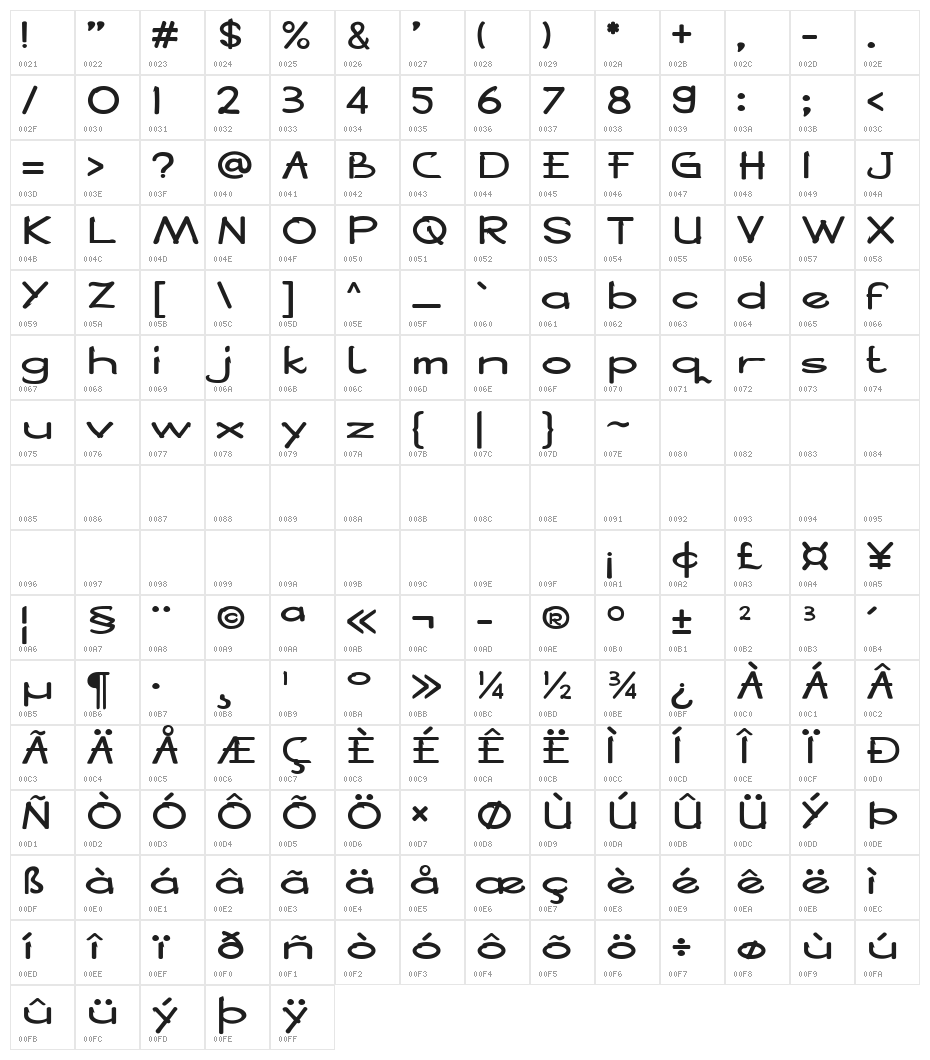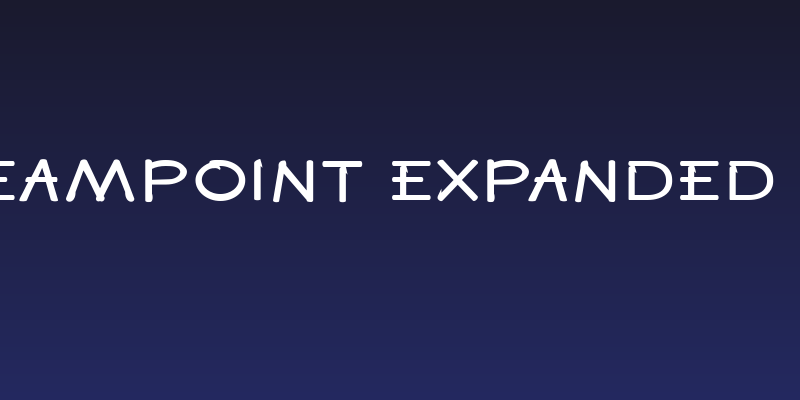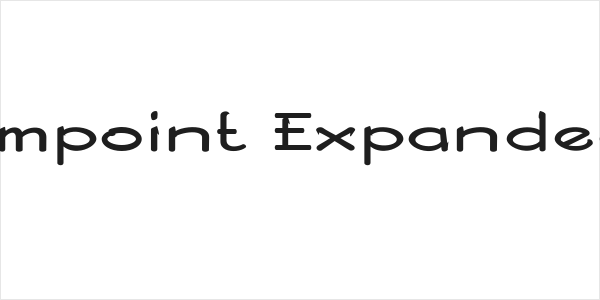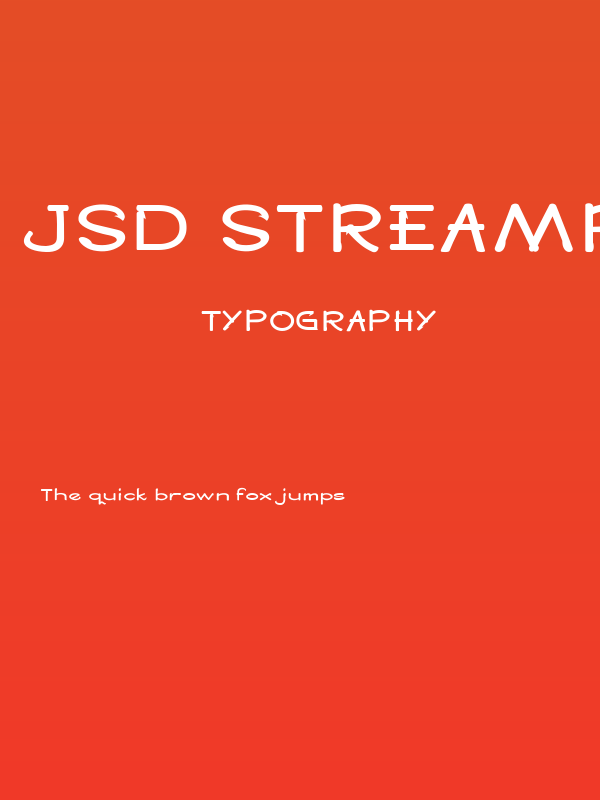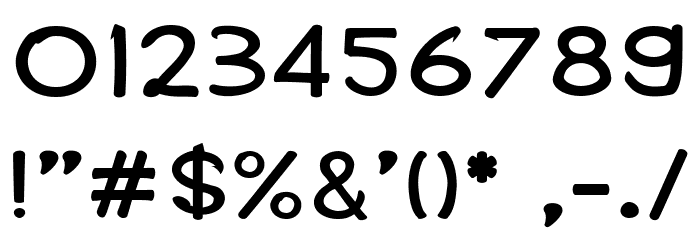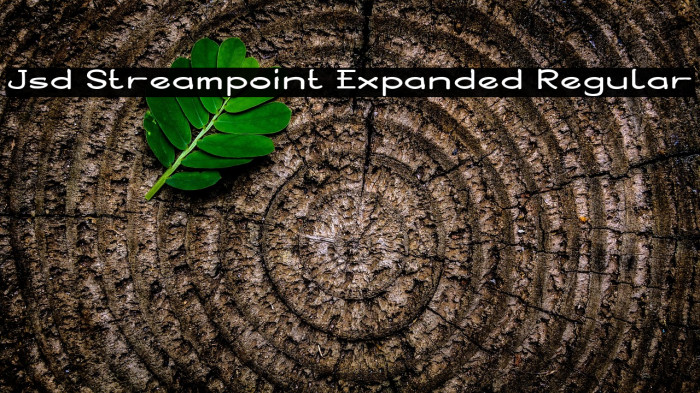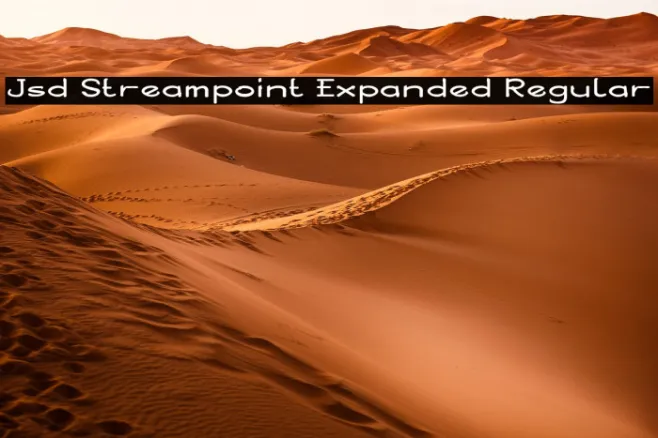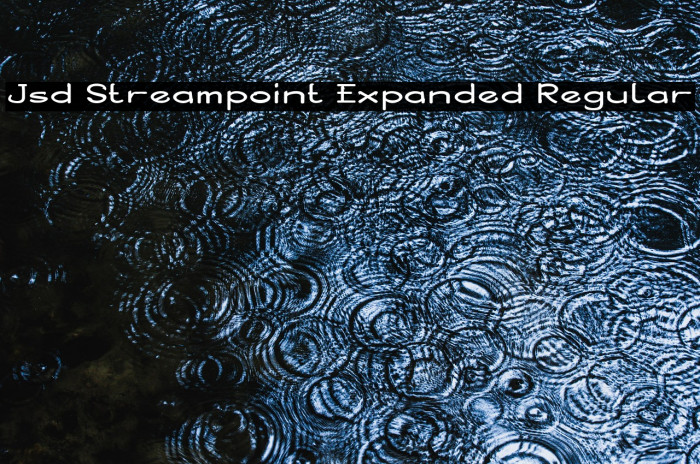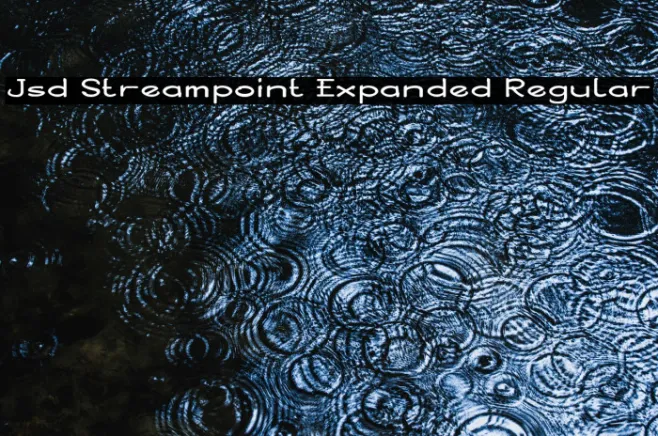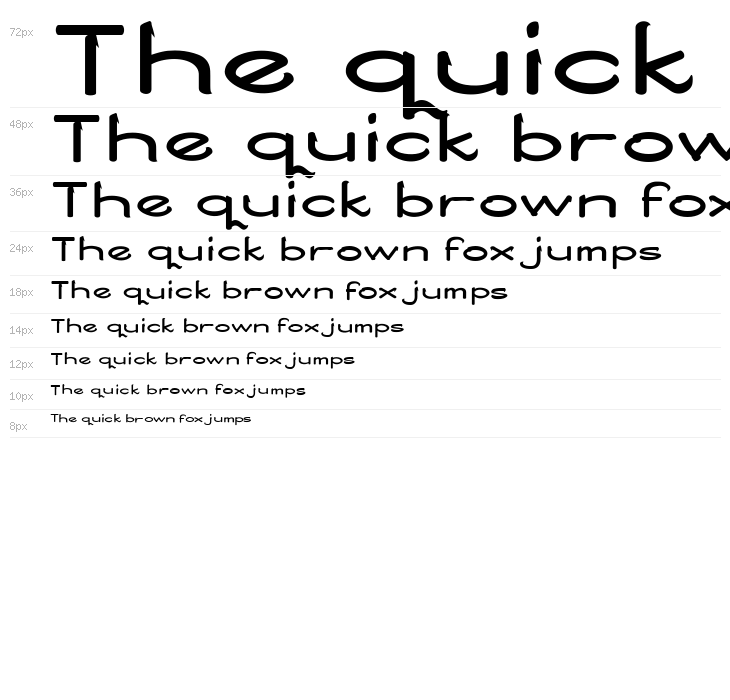
Jsd Streampoint Expanded Regular Font
Jsd Streampoint Expanded Regular Description
This font features a playful and dynamic style with a unique, slightly irregular form that gives it a hand-drawn appearance. The characters are bold and rounded, with a whimsical touch that adds personality. The uppercase letters are distinct with a slight slant, while the lowercase letters maintain a consistent flow. Numbers and special characters are crafted with the same playful aesthetic, making them stand out. The overall design is approachable and friendly, suitable for projects that require a touch of creativity and fun.
| Proposed Projects | Ideal for children's books, playful branding, creative posters, and informal invitations. |